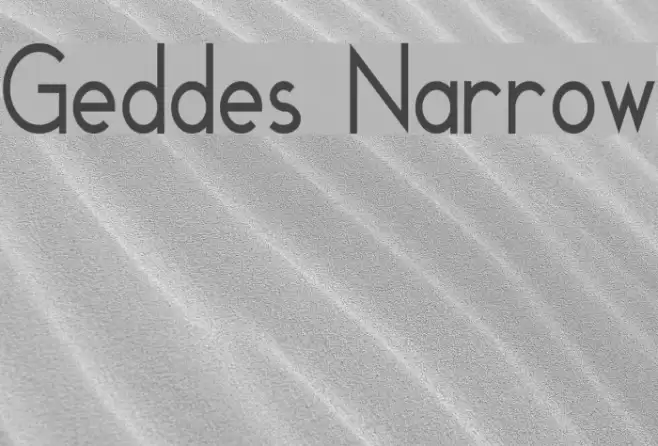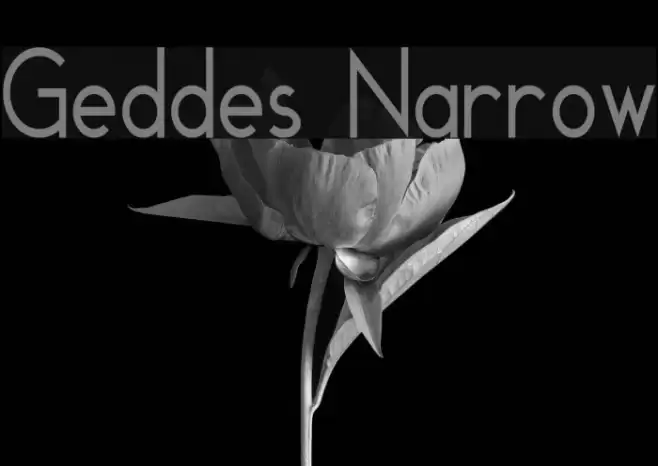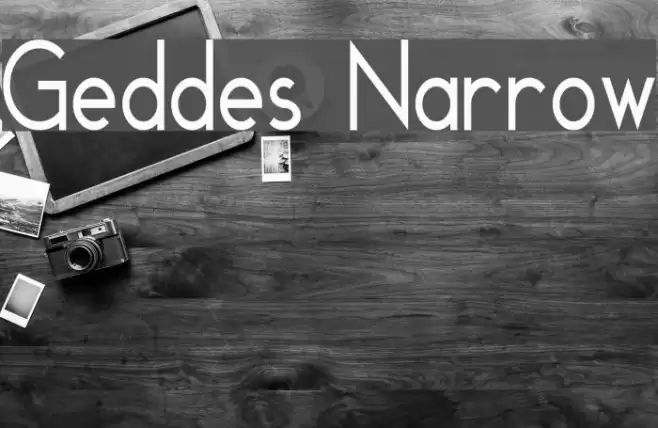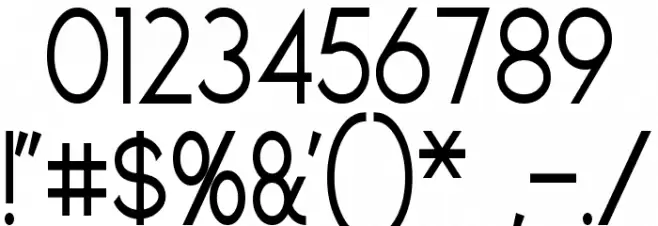
Geddes Narrow Font
Geddes Narrow Description
This font features a clean, geometric sans-serif style with a narrow width, giving it a sleek and modern appearance. The uppercase letters are uniform in height, with sharp angles and straight lines, while the lowercase letters maintain a consistent roundness, providing a harmonious balance. The numerals are distinct and easily readable, matching the overall aesthetic of the alphabet. Special characters are well-integrated, maintaining the font's minimalist design. This typeface is ideal for projects that require a contemporary and professional look.
A modern, geometric sans-serif font with narrow width and clean lines from Uncategorized fonts.
- Proposed Projects: Ideal for branding, editorial design, advertising, and digital interfaces.